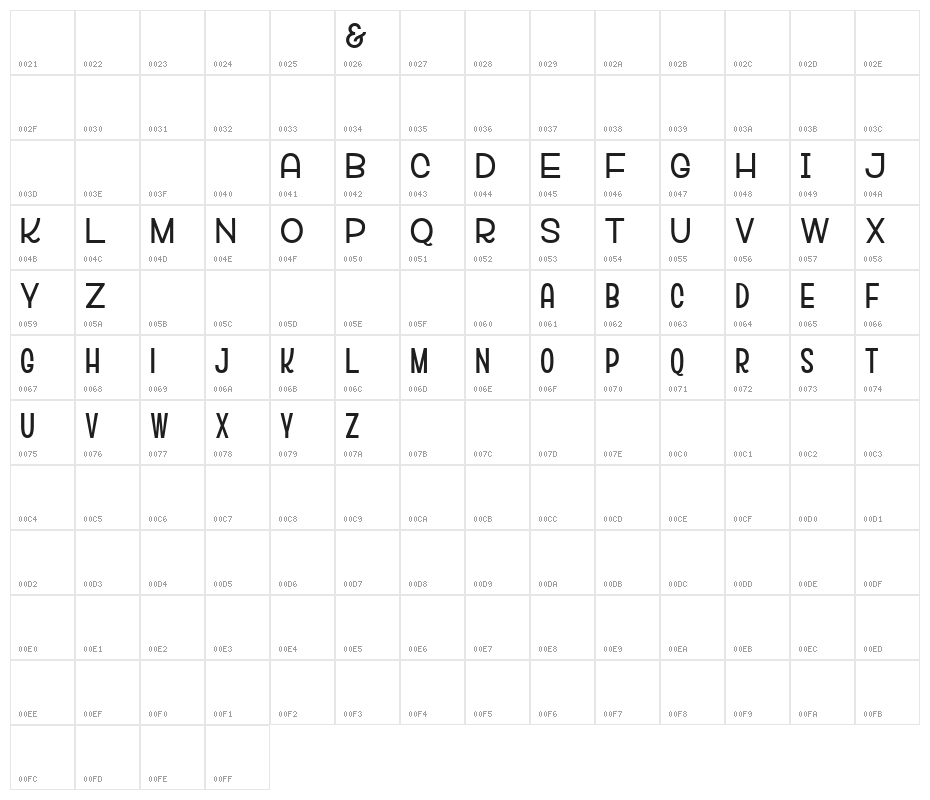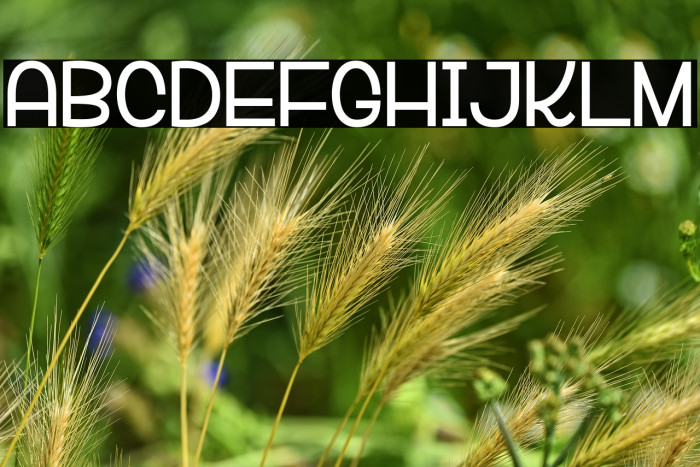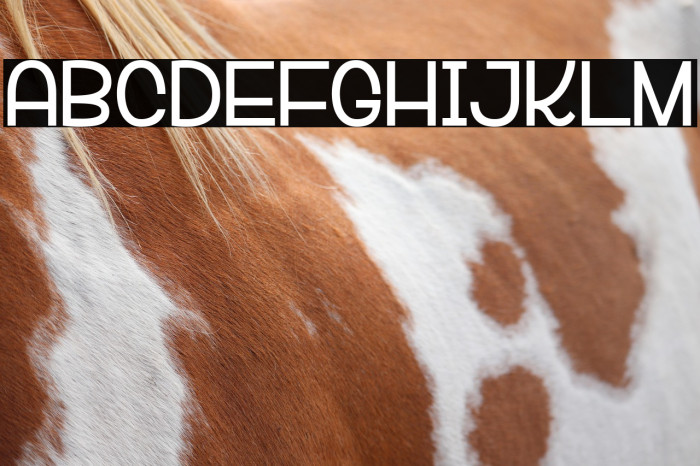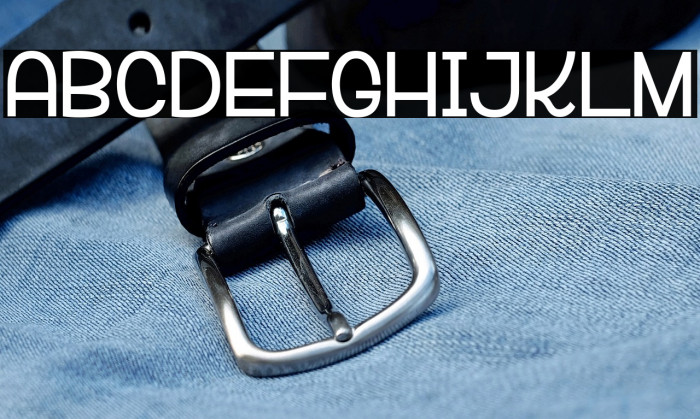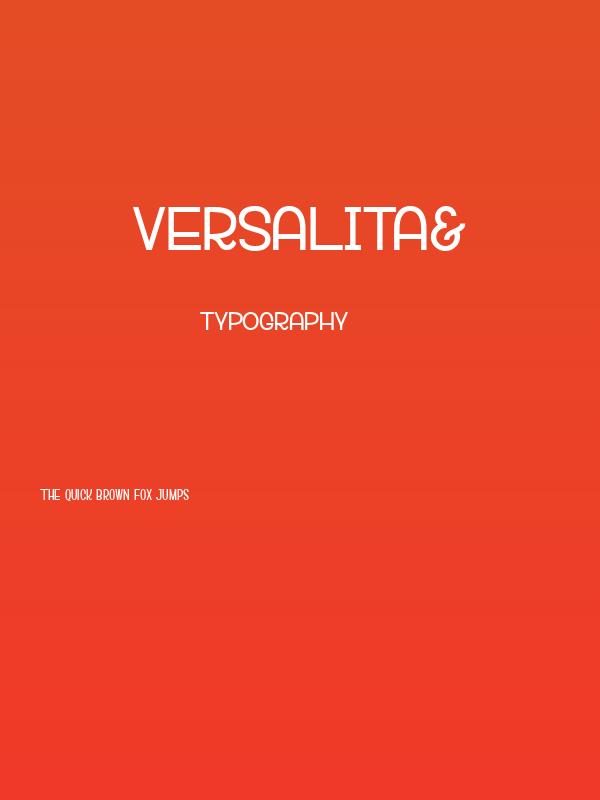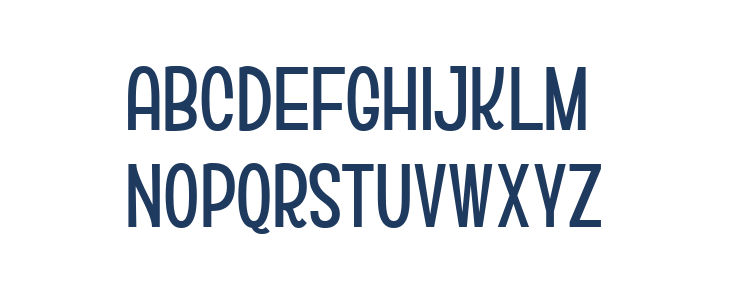
VeRsaLiTa& Font
VeRsaLiTa& Description
This font features a bold, modern design with a geometric structure that is both clean and versatile. The uppercase letters are uniform in height, with a slight curvature that adds a touch of elegance. The lowercase letters maintain a consistent style, complementing the uppercase with their rounded forms. The ampersand is particularly distinctive, showcasing a unique flair that stands out. The overall appearance is sleek and contemporary, making it suitable for a variety of design applications. The font's boldness ensures readability while its modern aesthetic makes it ideal for branding and advertising.